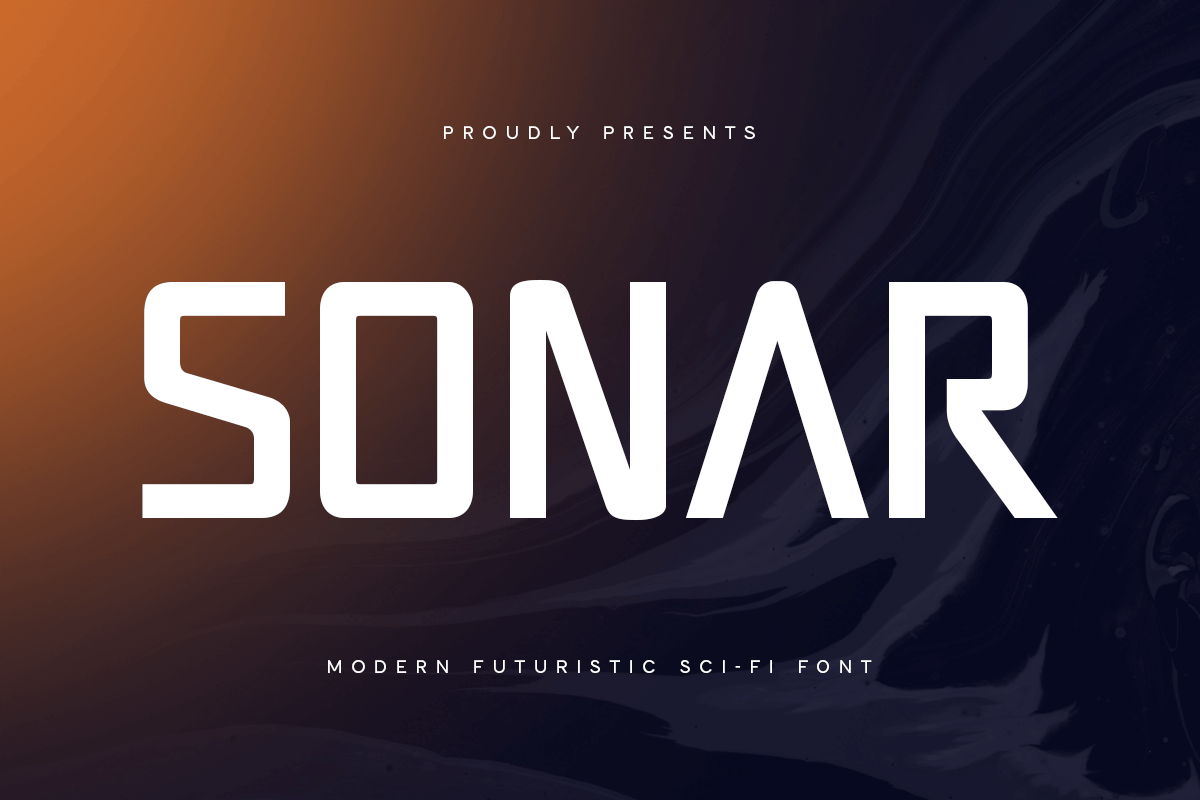
Sonar
Sonar Modern Futuristic Sci-fi Font
Sonar is a Modern Futuristic Sci-fi Font that created special for Sci-fi, Modern, Technology and more stand out typography needs, with extra perfect styles that make your design more Futuristic. It's so perfect to add your style and headline overview for Cryptocurrency, technology, film, and Sci-fi theme. And specially for this font, we crafted for modern style and technology feels so enjoy to create any project that will show your main idea out.
Futuristic characters prepared to get creative alternatives in Technology theme
Preview as a inspirations that you can do with Sonar font
Ready with Technology characters